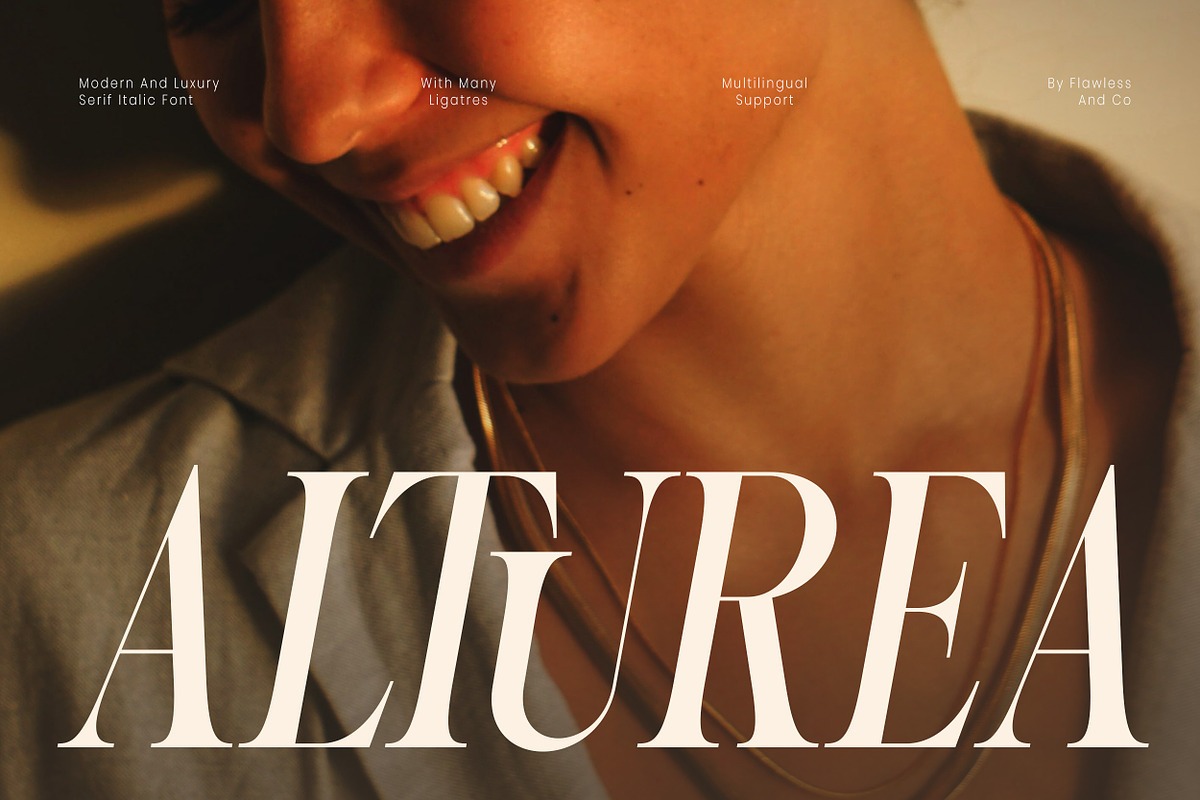
Alturea – Luxury Serif Font
Alturea – Luxury Serif Font is a modern and luxurious serif italic font that brings together graceful elegance, refined proportions, and timeless sophistication. Featuring slender strokes, dramatic contrasts, elegant curves, and beautifully extended letterforms, Alturea creates a sophisticated visual presence that feels both fashionable and effortlessly classy.
Designed with a distinctive italic character, Alturea adds a sense of movement and refinement to every word. Its delicate yet expressive forms make it especially striking in large-scale typography, allowing headlines, brand names, and short phrases to become the focal point of any composition.
Features:
Uppercase & Lowercase
Alternates & Ligatures
Numerals & Punctuation
Multilingual Support
Who should use Alturea?
Alturea is perfect for graphic designers, fashion brands, beauty businesses, branding agencies, boutique owners, wedding designers, publishers, and creative entrepreneurs looking for an elegant serif font with a luxurious editorial character.
Suitable For:
Luxury logo and branding
Fashion and beauty branding
Perfume and cosmetic packaging
Editorial and magazine design
Wedding invitations and stationery
Jewelry and accessory branding
Boutique and lifestyle brands
Elegant social media designs
Premium product packaging
Fashion campaign headlines
Book covers and titles
Luxury typography and wordmarks